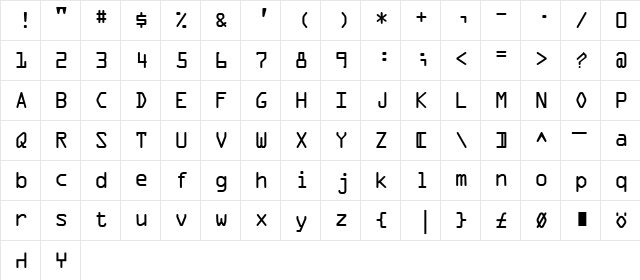
OCR-A II Regular
| Foundry | Agfa Monotype Corporation |
Design Context for OCR-A II Typeface
OCR-A II offers clean, dependable letterforms without strong stylistic allegiance, making it a practical choice for designers who need flexibility.